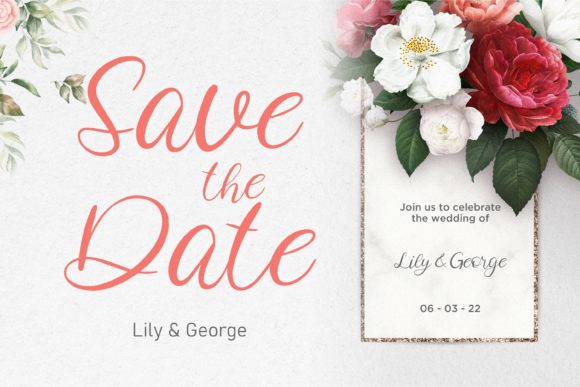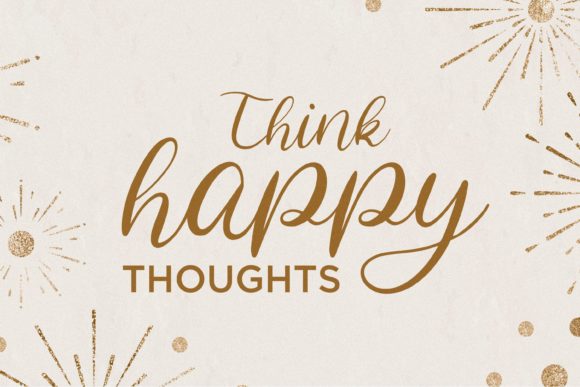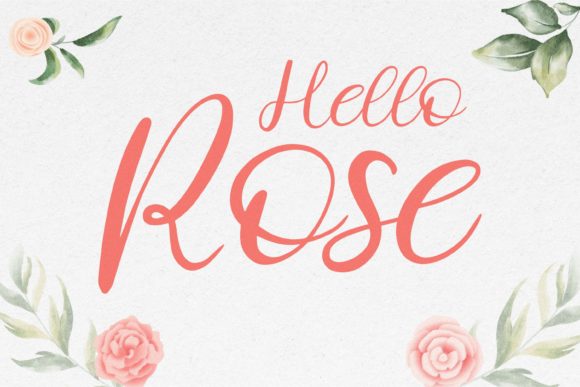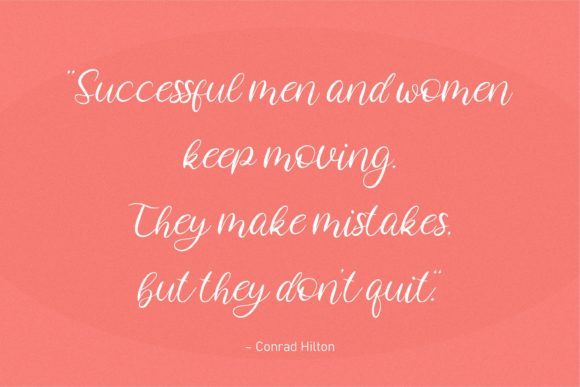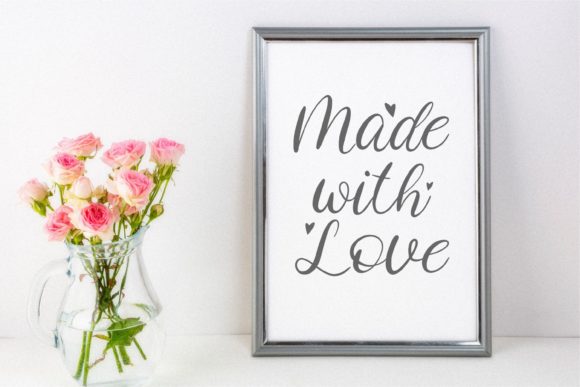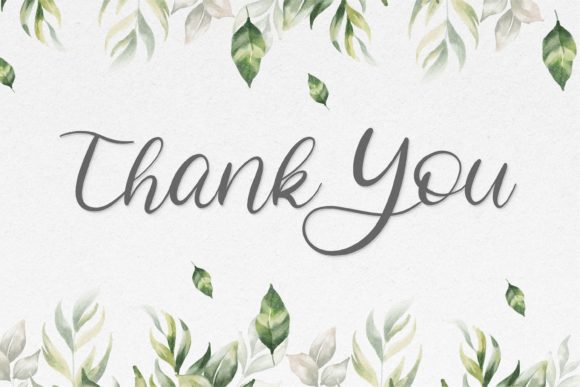
Introducing Costly Dishy Font: Elevate Your Designs with Elegance and Sophistication
Are you a designer or crafter looking for a font that exudes class, elegance, and modernity? Look no further than Costly Dishy, a beautiful and refined script font that is sure to take your designs to the next level. With its sophisticated and stylish aesthetic, Costly Dishy is the perfect choice for a wide range of design projects, from logos and branding to invitations, stationery, wedding designs, social media posts, and more.
What Makes Costly Dishy Font So Special?
Costly Dishy is a meticulously crafted script font that boasts a unique blend of classic elegance and modern flair. Its refined lettering and flowing curves make it perfect for designs that require a touch of sophistication and luxury. Whether you’re creating a logo, invitation, or social media post, Costly Dishy is sure to make a lasting impression.
Key Features of Costly Dishy Font
- Classy and Elegant Design: Costly Dishy features a beautiful, refined design that is perfect for high-end branding, luxury packaging, and sophisticated marketing materials.
- Modern Look and Feel: Despite its classic roots, Costly Dishy has a distinctly modern aesthetic that will help your designs stand out in a crowded marketplace.
- Versatile and Flexible: Costly Dishy can be used for a wide range of design projects, from logos and branding to invitations, stationery, and social media posts.
- Easy to Read and Understand: Despite its elegant design, Costly Dishy is surprisingly easy to read and understand, making it perfect for body text and longer design projects.
Use Cases for Costly Dishy Font
So, what can you create with Costly Dishy font? The possibilities are endless! Here are a few ideas to get you started:
- Logos and Branding: Use Costly Dishy to create a sophisticated and memorable logo that will help your business stand out.
- Invitations and Stationery: Add a touch of elegance to your invitations, business cards, and other stationery with Costly Dishy.
- Wedding Designs: Make your wedding designs truly unforgettable with Costly Dishy, perfect for wedding invitations, programs, and more.
- Social Media Posts: Elevate your social media presence with Costly Dishy, perfect for creating eye-catching graphics and posts.
Why Choose Costly Dishy Font?
With so many fonts to choose from, why should you choose Costly Dishy? Here are just a few reasons:
- Unique and Memorable: Costly Dishy is a one-of-a-kind font that will help your designs stand out from the crowd.
- High-Quality Design: Costly Dishy is meticulously crafted to ensure that it looks great in any design project.
- Easy to Use: Costly Dishy is surprisingly easy to use, even for designers who are new to script fonts.